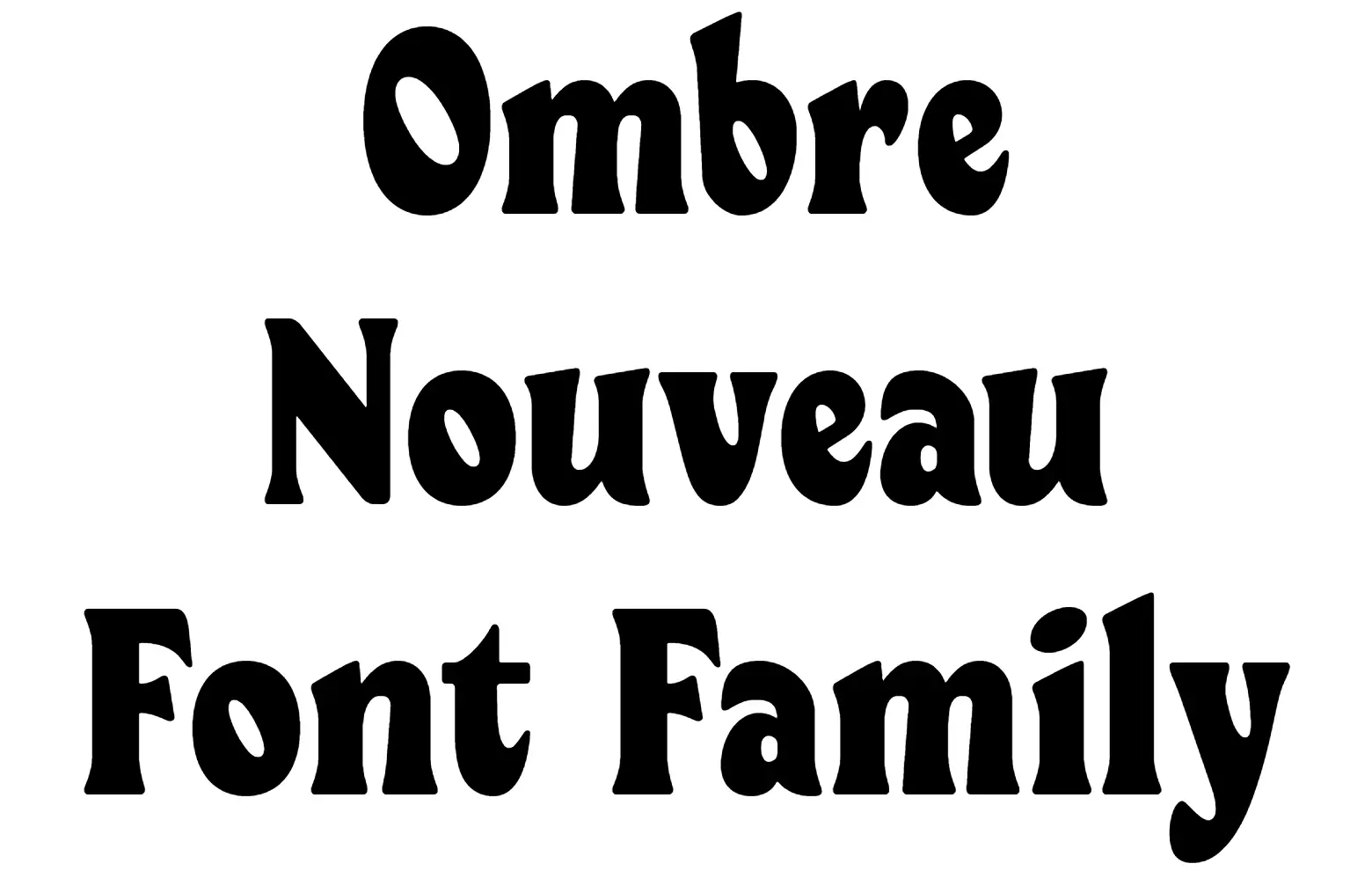
Ombre Nouveau Font Family
Ombre Nouveau Font Family is a fancy font designed by Prio Nurokhim Aji (2025). Bold and full of character, it's built to stand out rather than blend in. The free download includes 12 styles, and you can try every one of them with your own text in the preview above.
- Designer: Prio Nurokhim Aji
- Font styles: 12 (Regular, Extra Light, Light, Extra Light Italic, Medium, Medium Italic, Semi Bold, Semi Bold Italic, Extra Bold, Extra Bold Italic and Italic)
- Weights: ExtraLight (200) to ExtraBold (800)
- Glyphs: 390 in the Regular style
- OpenType features: Ligatures, stylistic alternates and fractions
Ombre Nouveau Font Family covers the full alphabet in upper and lowercase, plus all ten numbers, so you can set names, dates and prices without switching fonts. Everyday marks like &, !, ? and @ are there too. Thanks to its accented letters, it also works for Spanish, French, German, Portuguese and Italian, not just English.
Think of Ombre Nouveau Font Family for posters, logos and eye-catching headlines. Use it for one standout word or headline and let simpler fonts handle the rest. Because the family has more than one style, you can mix them in a single design for headings, subheadings and highlights.